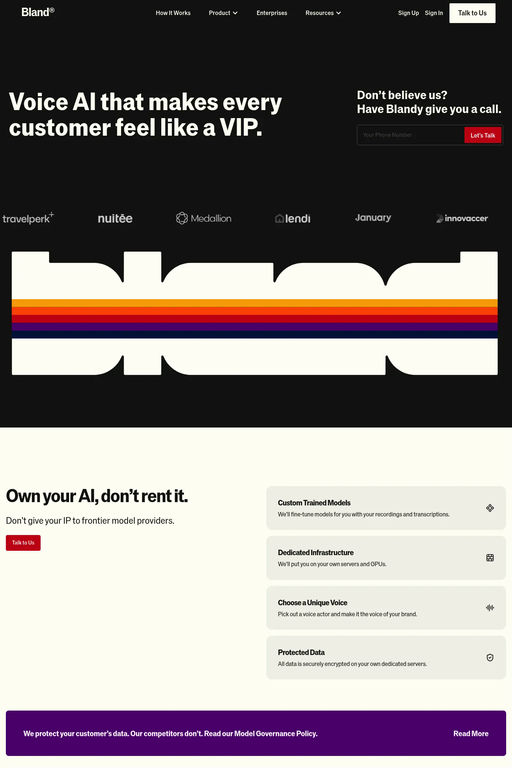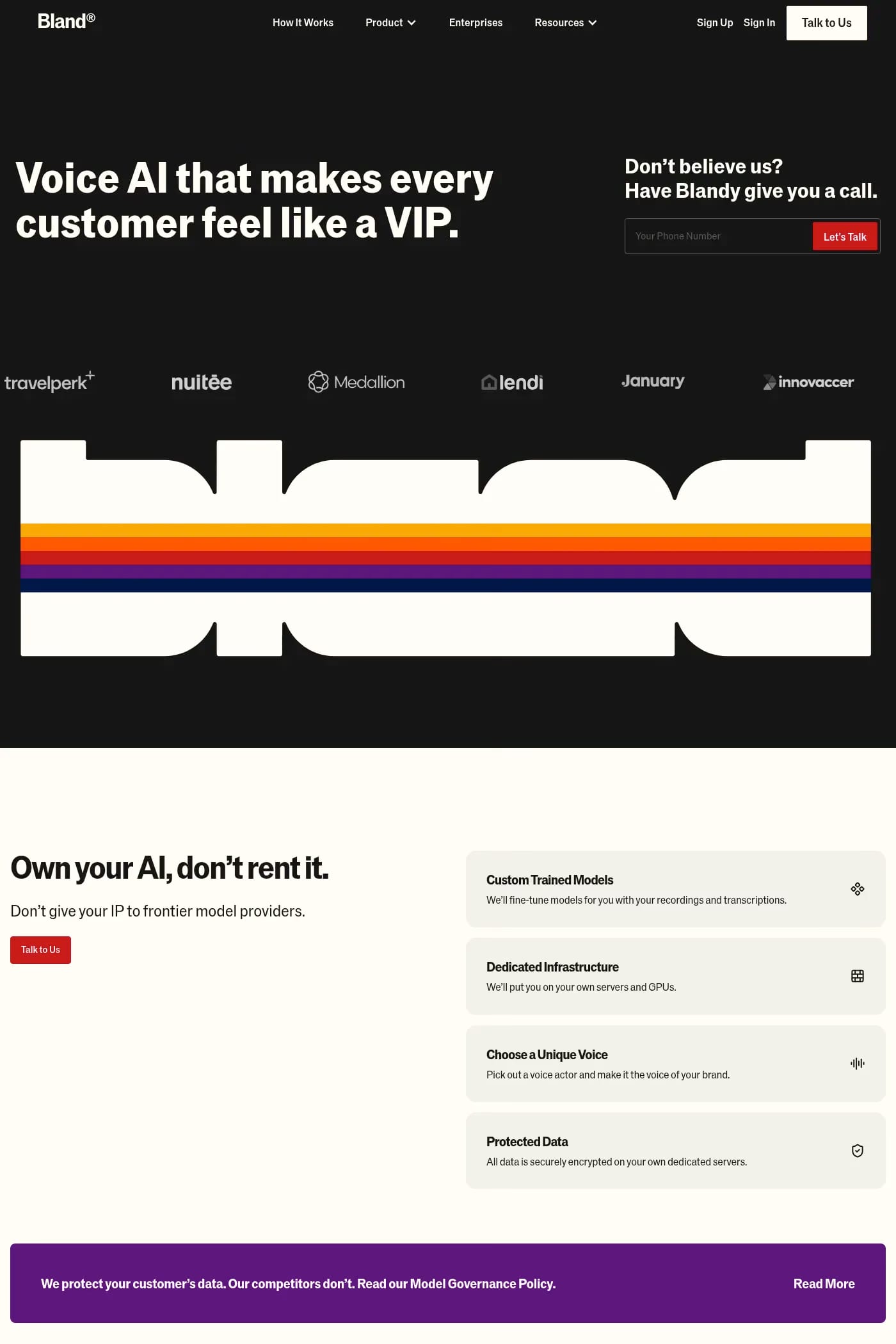
Taurus Grotesk is a sans-serif typeface from Foster Type.
Taurus Grotesk secures a position between the extremes of clinical rationality and impractical weirdness, which affords it character and utility. Its origins lie in the lively, early 20th-century German Grotesk, Venus.